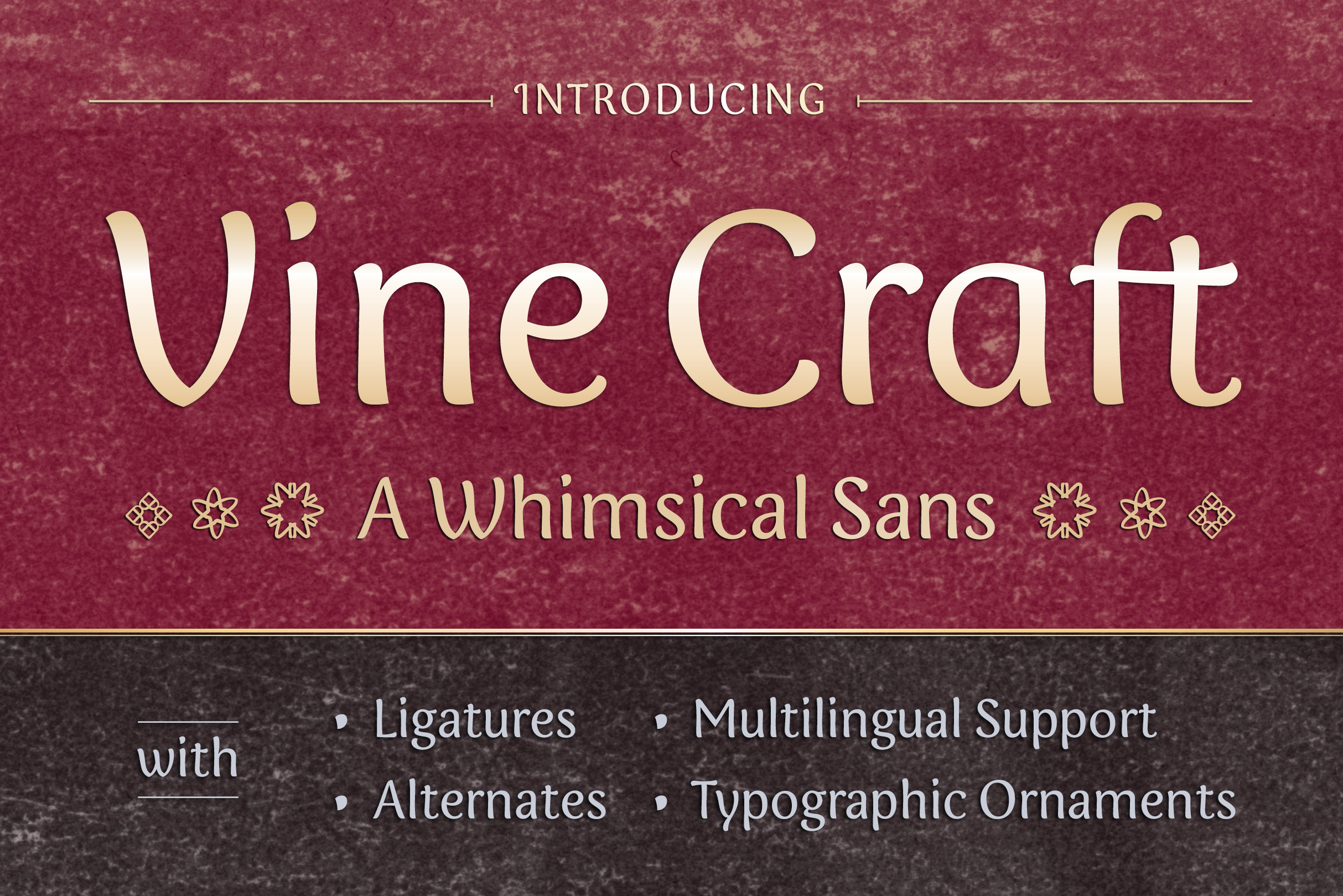
Vine Craft Font
Introducing Vine Craft, a special edition of my Typeface Vine *, born from the art of letterpress printing. Vine Craft is packed with alternates, typographic ornaments, and multilingual support. It also gave origin to the collections of patterns featured here at our store.
Vine's design is a contemporary interpretation of the humanist sans serif. With a natural, friendly feel, and upright stance, the flow and flexibility of its stems are reminiscent of a curve in a tree branch, a wave, or a calligrapher's dancing hand.
Combined with semi-condensed proportions and the consistency of its flat and pointy endings, Vine still looks as if it's standing tall and firm despite its organic design. Its big x-height and clear forms create a perfect balance between expressiveness and legibility, making it a flexible option for its users.
Applications
From fine print stationery to joyful books, branding, specialty labels, and packaging, Vine Craft will warm up your layouts with its soothing, friendly voice and expand your possibilities with alternate characters and unique ornaments made with the letters from the font itself.